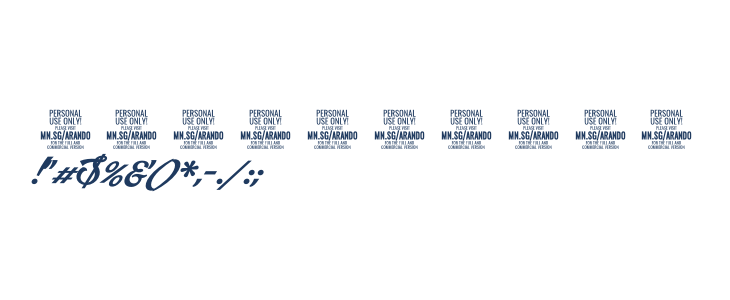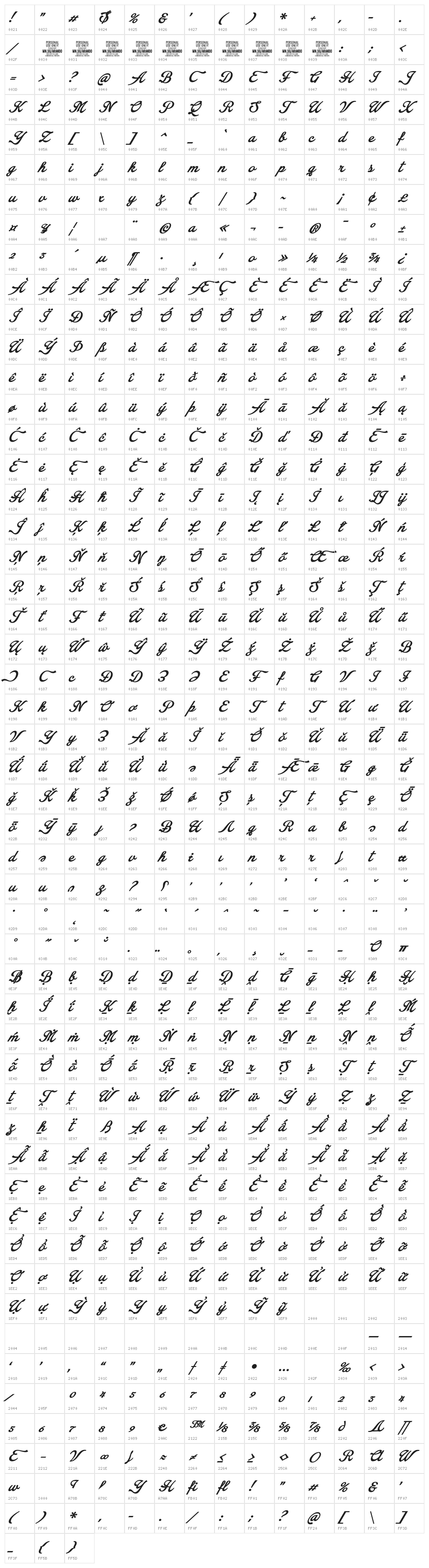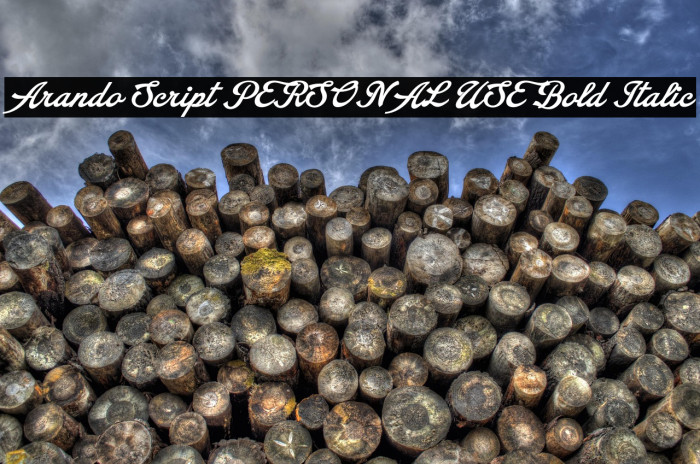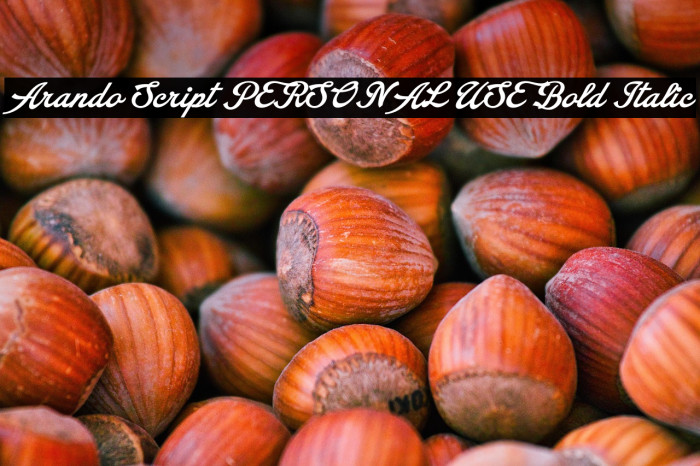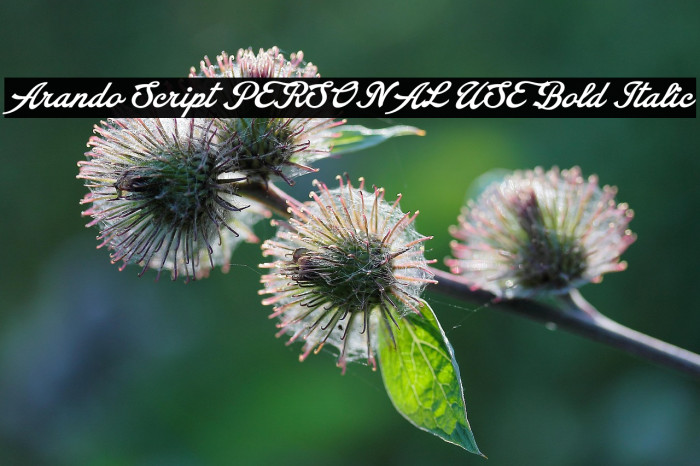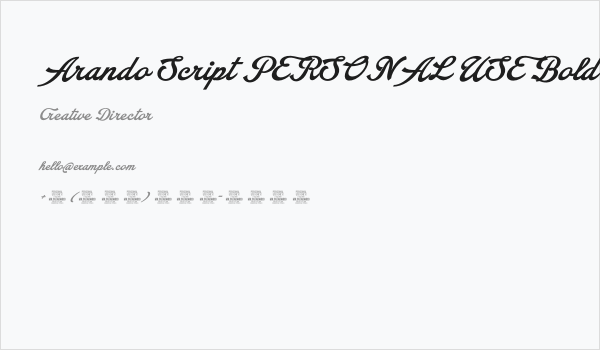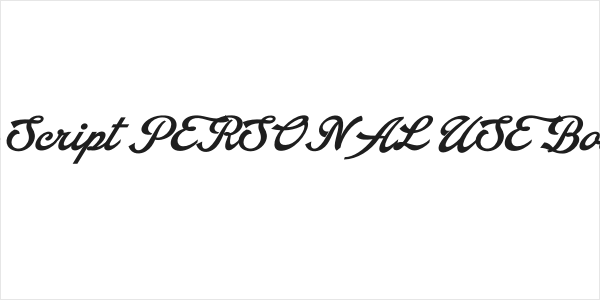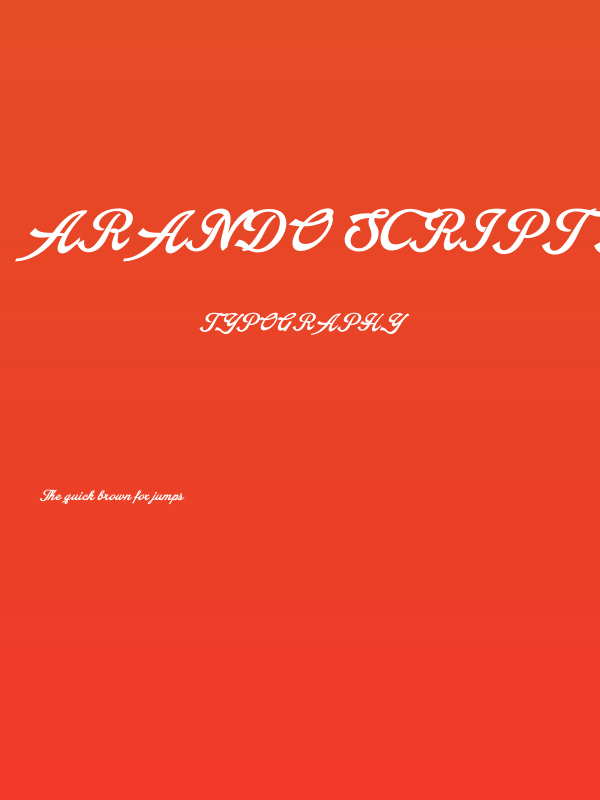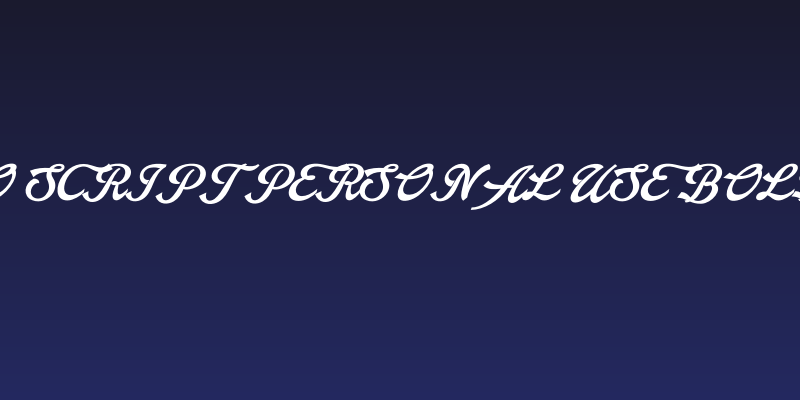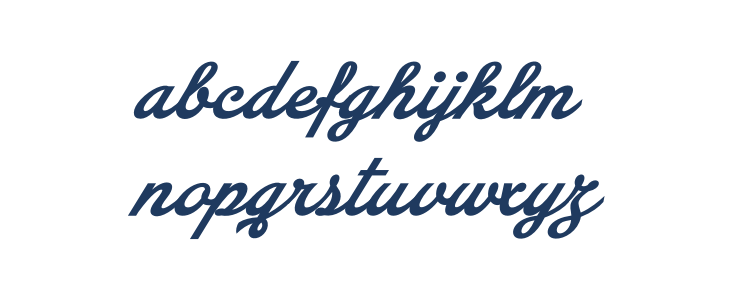
Arando Script PERSONAL USE Bold Italic Font
Arando Script PERSONAL USE Bold Italic Description
This script font features a bold and italic style, characterized by its flowing, cursive letters that convey elegance and sophistication. The uppercase letters are ornate and slightly slanted, while the lowercase letters maintain a consistent, connected flow. The font includes a full set of uppercase and lowercase letters, numbers, and a variety of special characters. Its bold weight and italic slant give it a dynamic and expressive appearance, making it suitable for creative and decorative applications. The strokes are thick, providing a strong visual impact, and the overall design is cohesive, with each character seamlessly transitioning into the next.
| Proposed Projects | Ideal for wedding invitations, greeting cards, branding projects, and decorative headlines. |